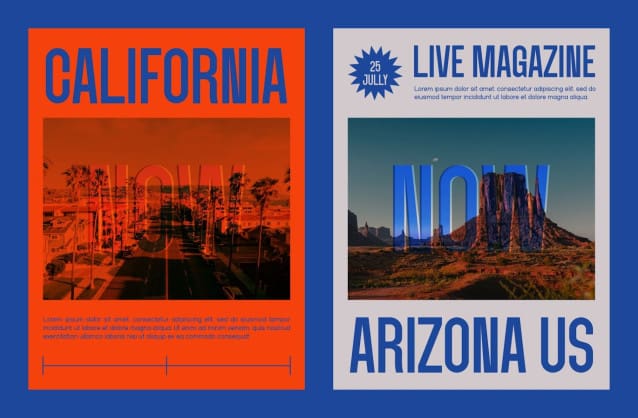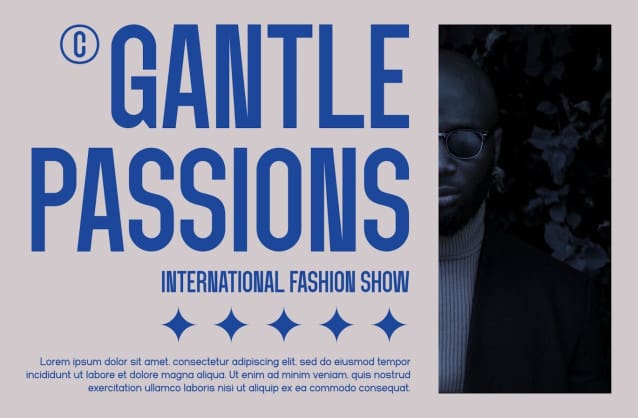
Adoner Font
Adoner Font – the epitome of sleek, contemporary design in the world of typography. With its compact form and sans serif style, Adoner Condensed exudes confidence and sophistication, making it the perfect choice to attract attention and bring a modern feel to your designs.
“Titles With its boldness and clarity of character, Adoner Condensed provides a powerful presence in every title. From the cover page to the subhead, this font ensures your message is conveyed boldly and effectively”
“Websites: Optimum readability and modern aesthetics make Adoner Font an ideal choice for website designs. Use this font in navigation, headings, or other large text to enhance branding and grab visitors’ attention”
“Posters: For stunning and effective posters, nothing beats the clarity and visual power of Condensed Adoner. With the ability to display large text in limited space, this font ensures your message is visible even from a distance”
“Magazines: From cover layouts to editorial articles, Adoner Condensed brings an unmatched modern touch to your magazine designs. The compactness of the characters and the clarity of the lines make them perfect for capturing the reader’s attention and creating a consistent professional impression”